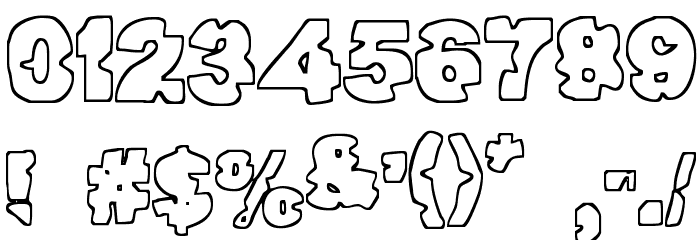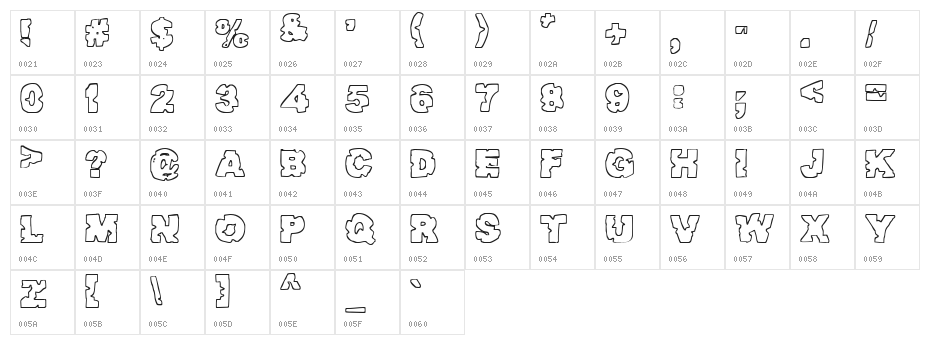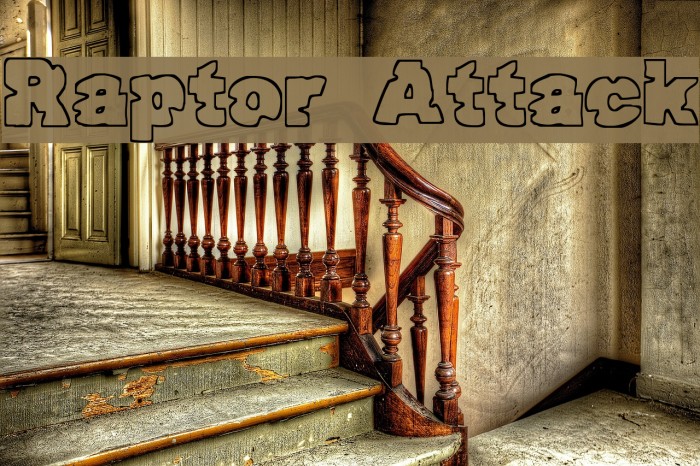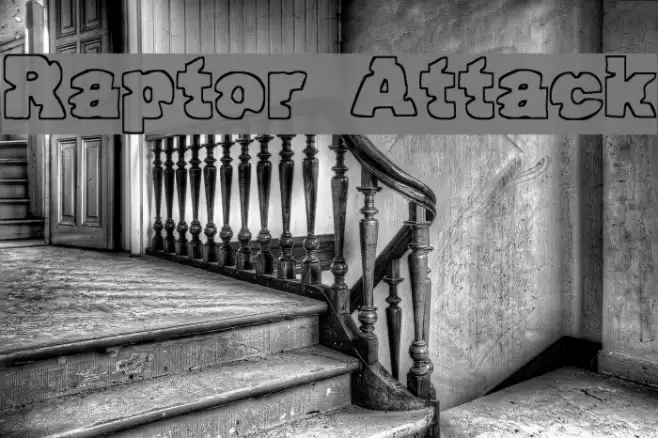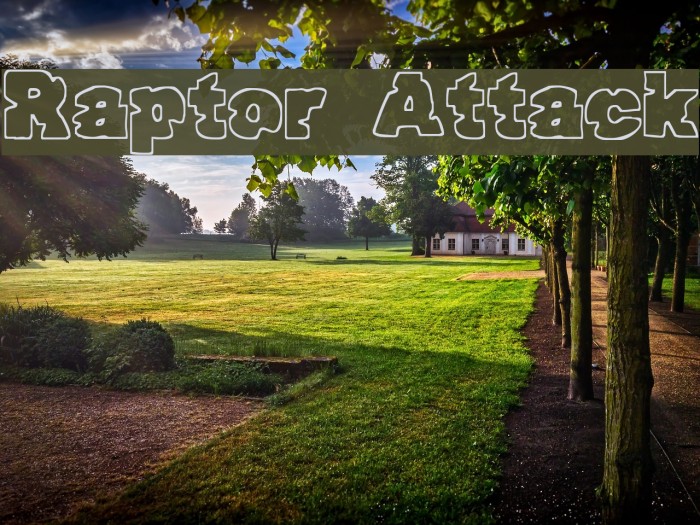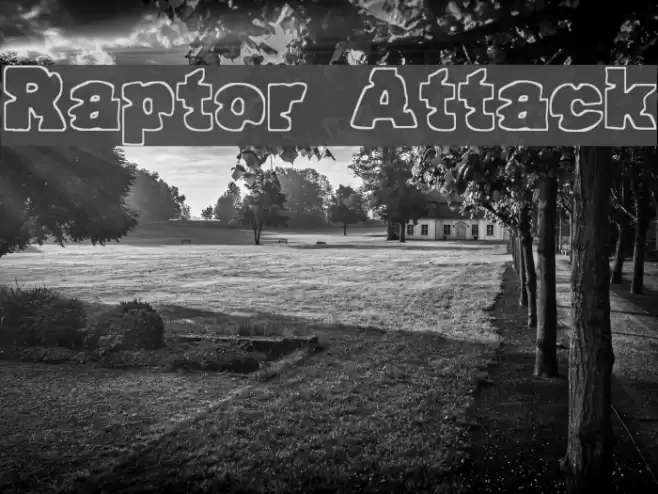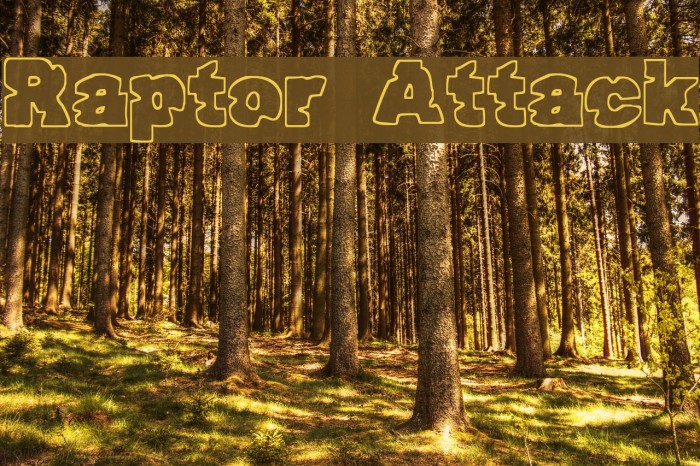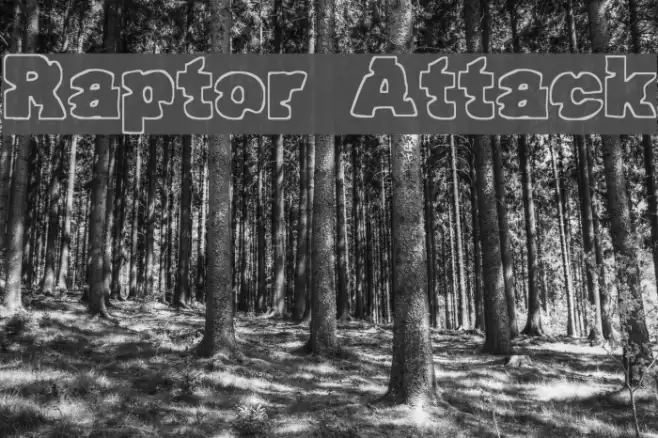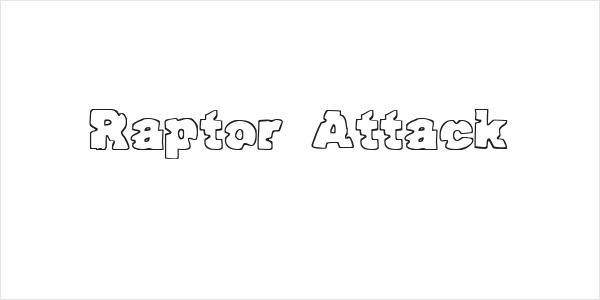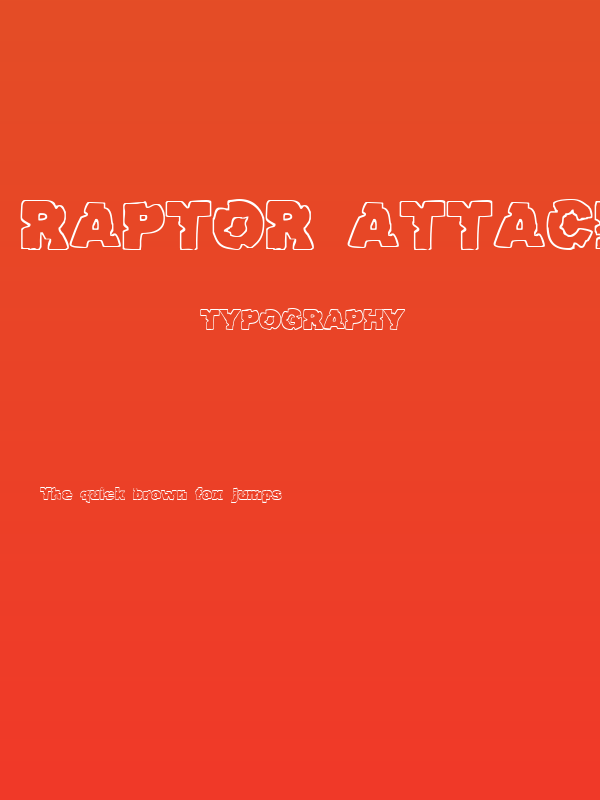
Raptor Attack Font
Raptor Attack Description
This font features a bold, playful style with thick, rounded edges and a cartoonish appearance. The characters are outlined, giving them a bubble-like effect that adds a sense of fun and energy. The uppercase and lowercase letters maintain a consistent style, with exaggerated curves and a slightly irregular shape that enhances its whimsical nature. Numbers and special characters follow the same design principles, ensuring uniformity across all glyphs. This font is ideal for projects that require a lively and engaging look.
| Overall Style | Playful, Cartoonish |
| Proposed Projects | Ideal for children's books, comic strips, playful branding, and party invitations. |